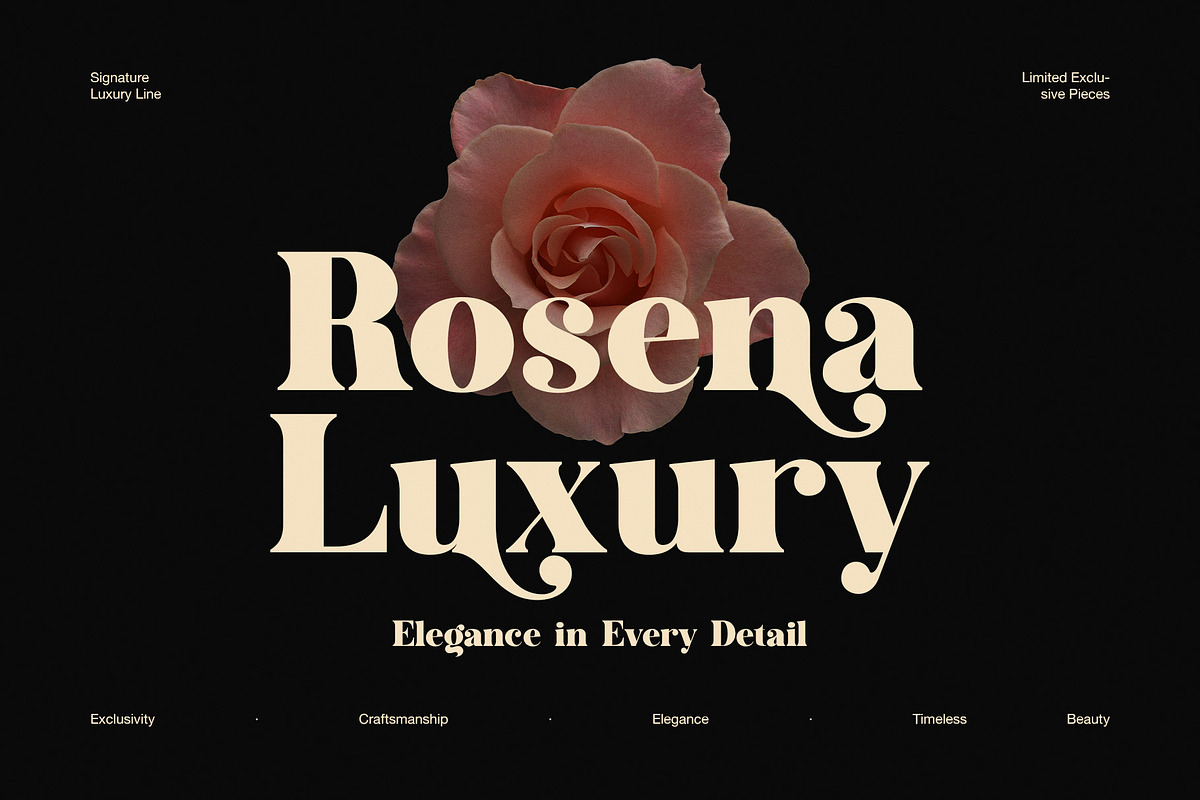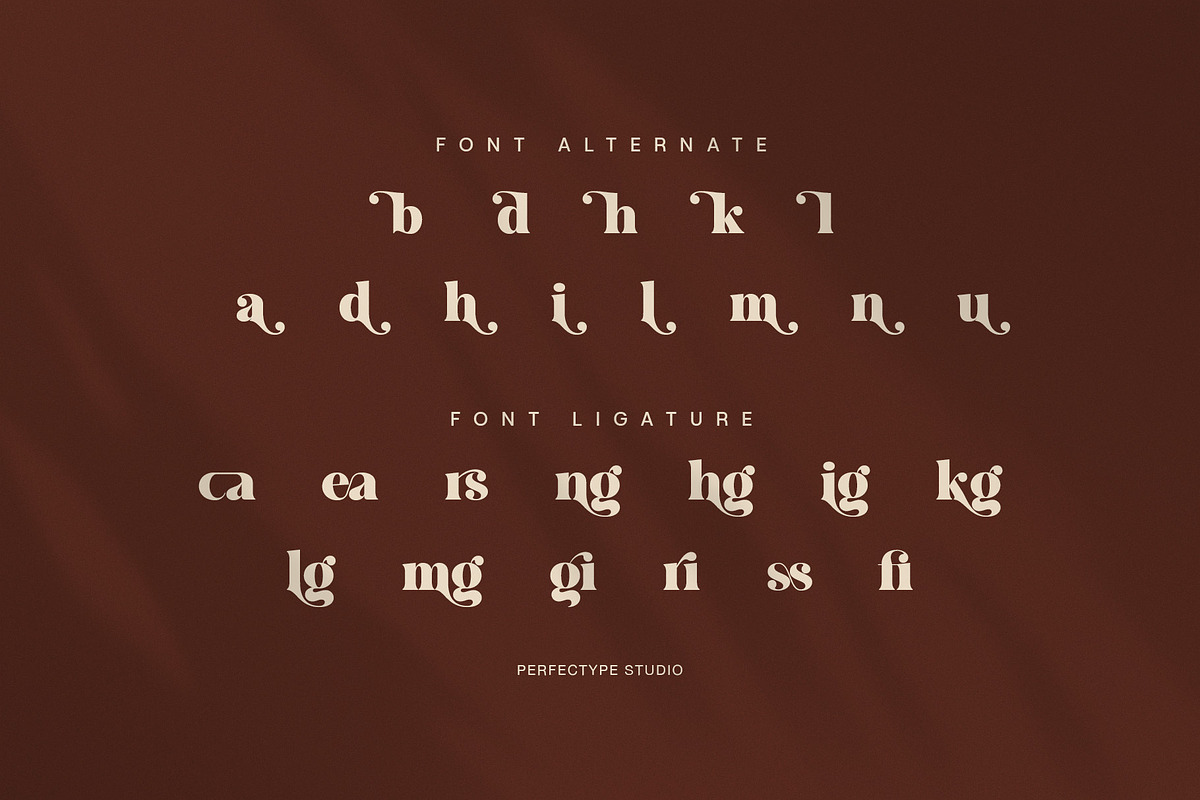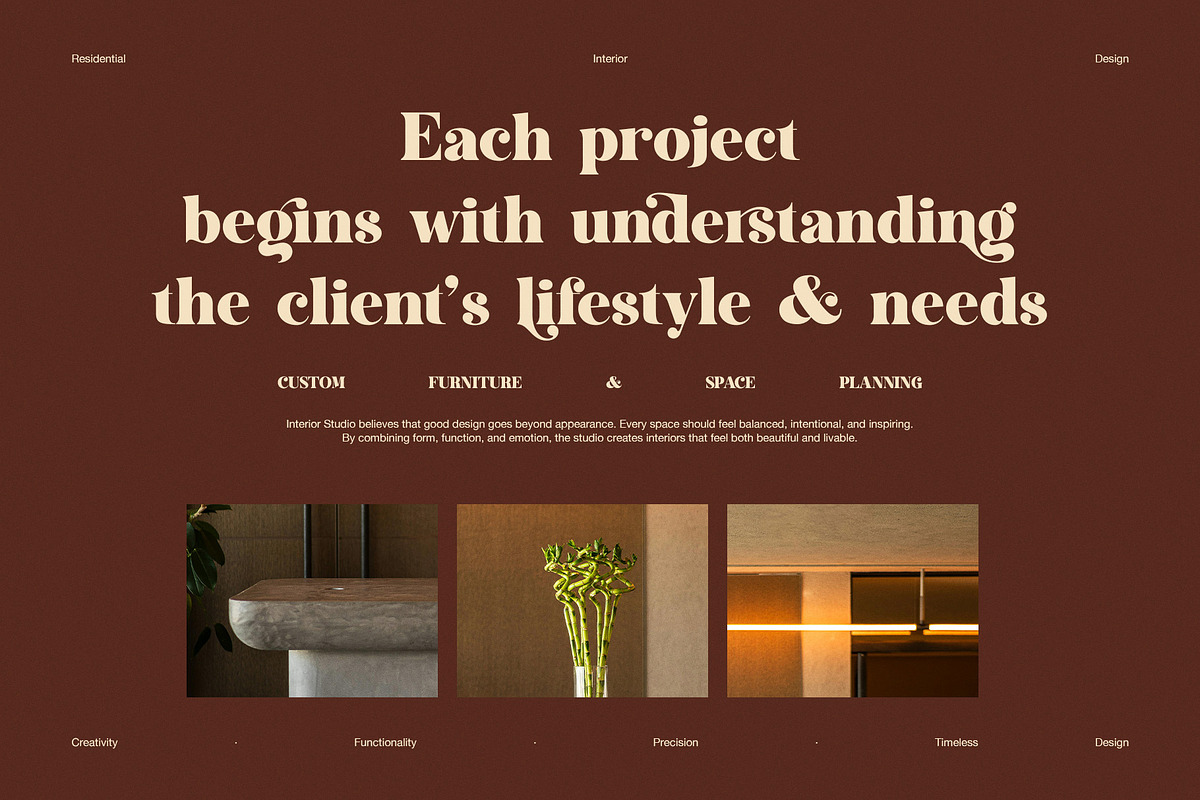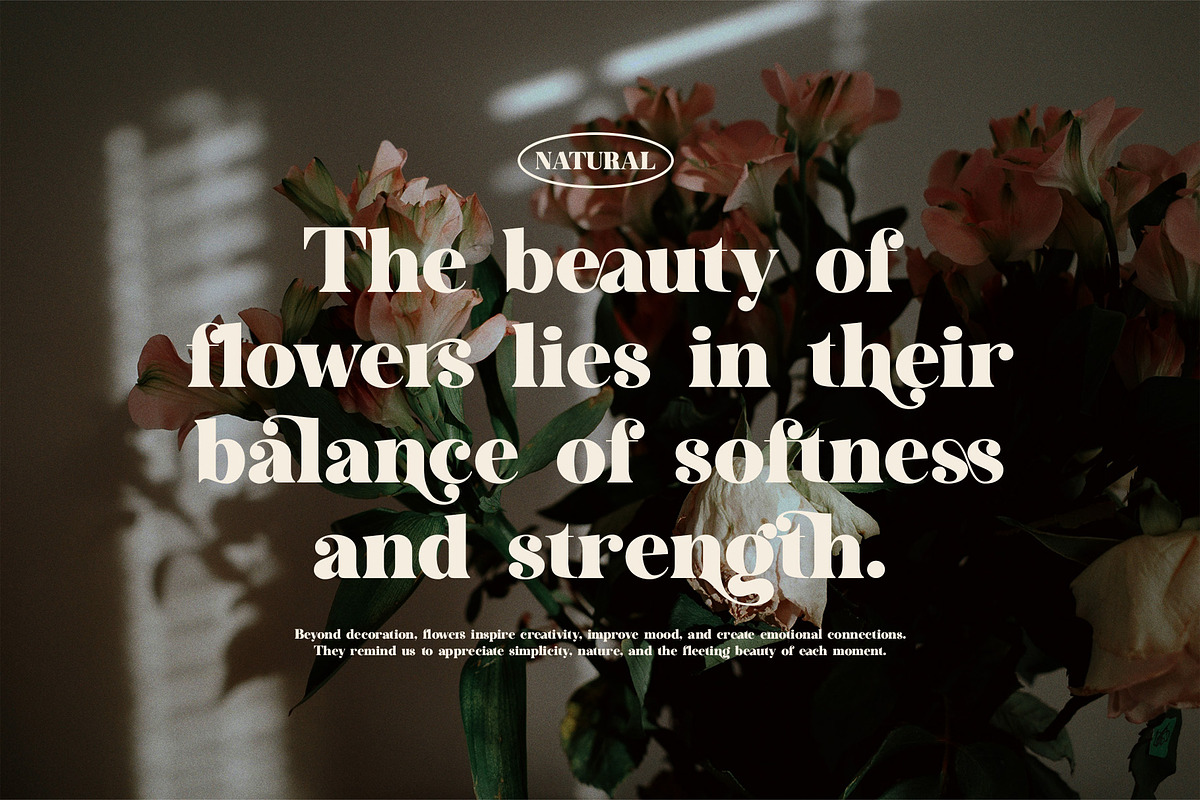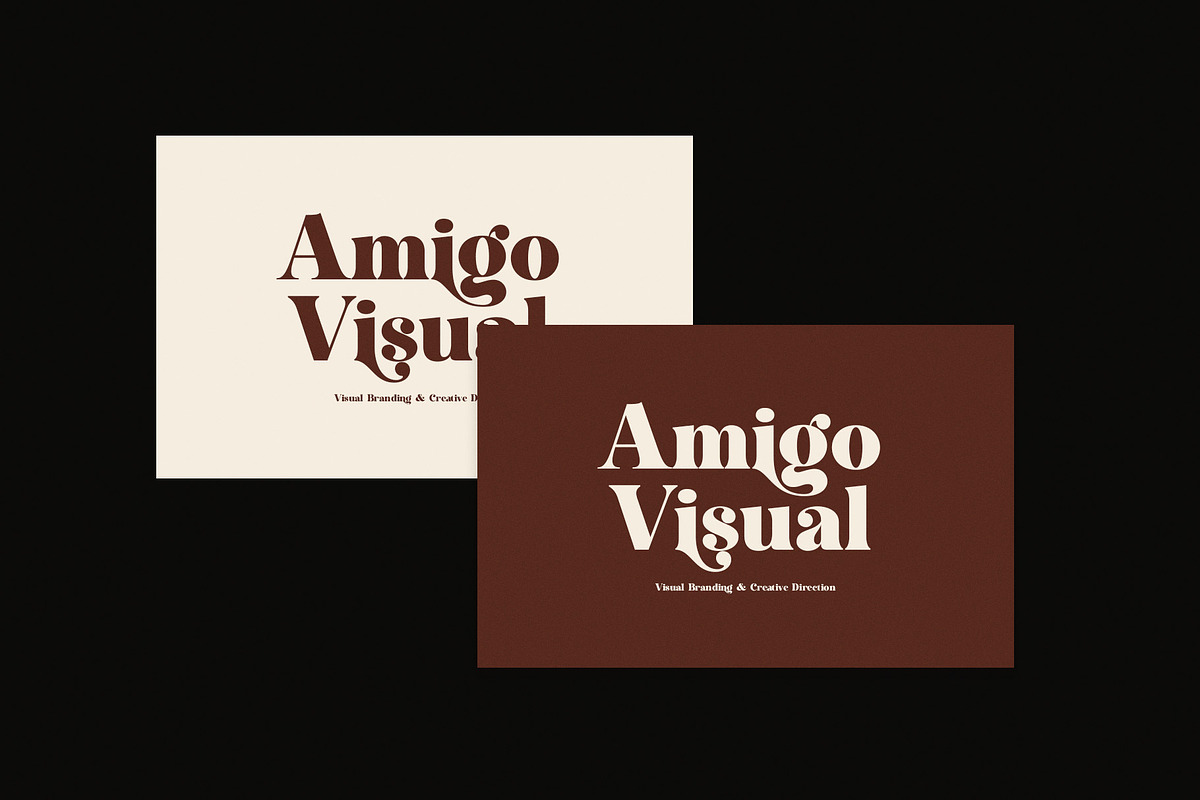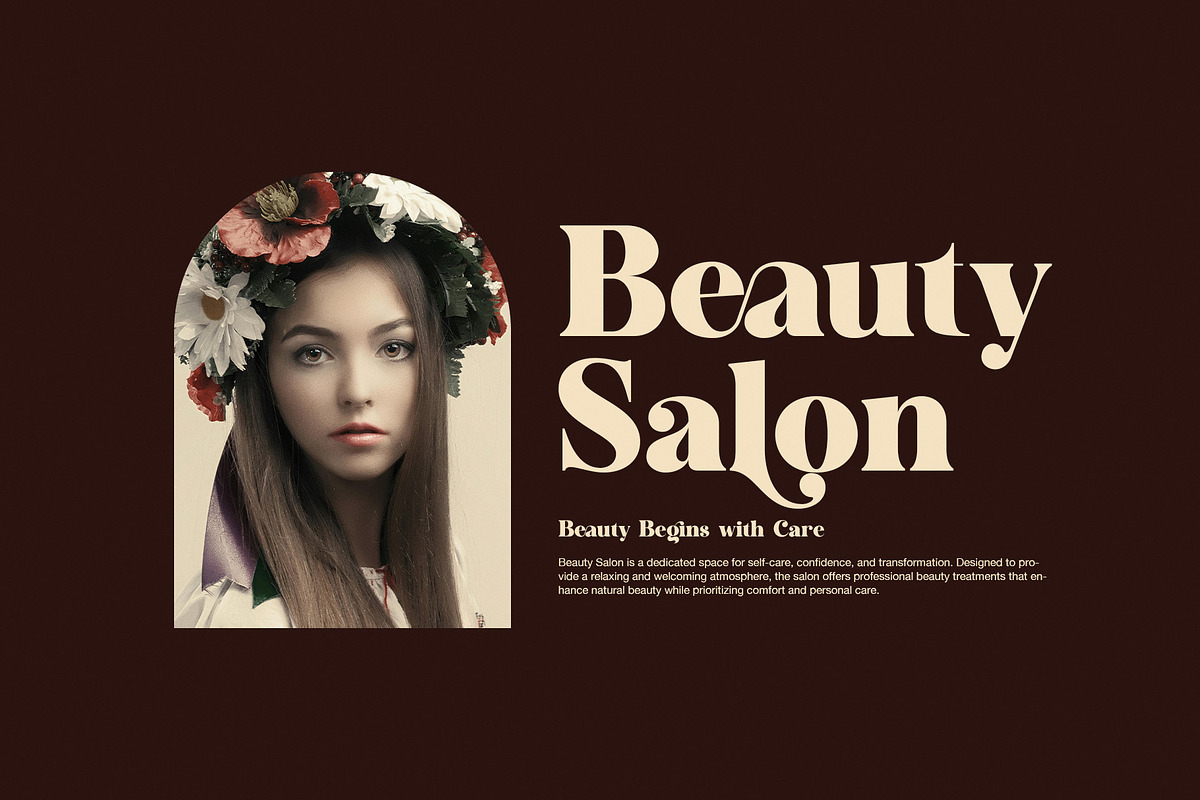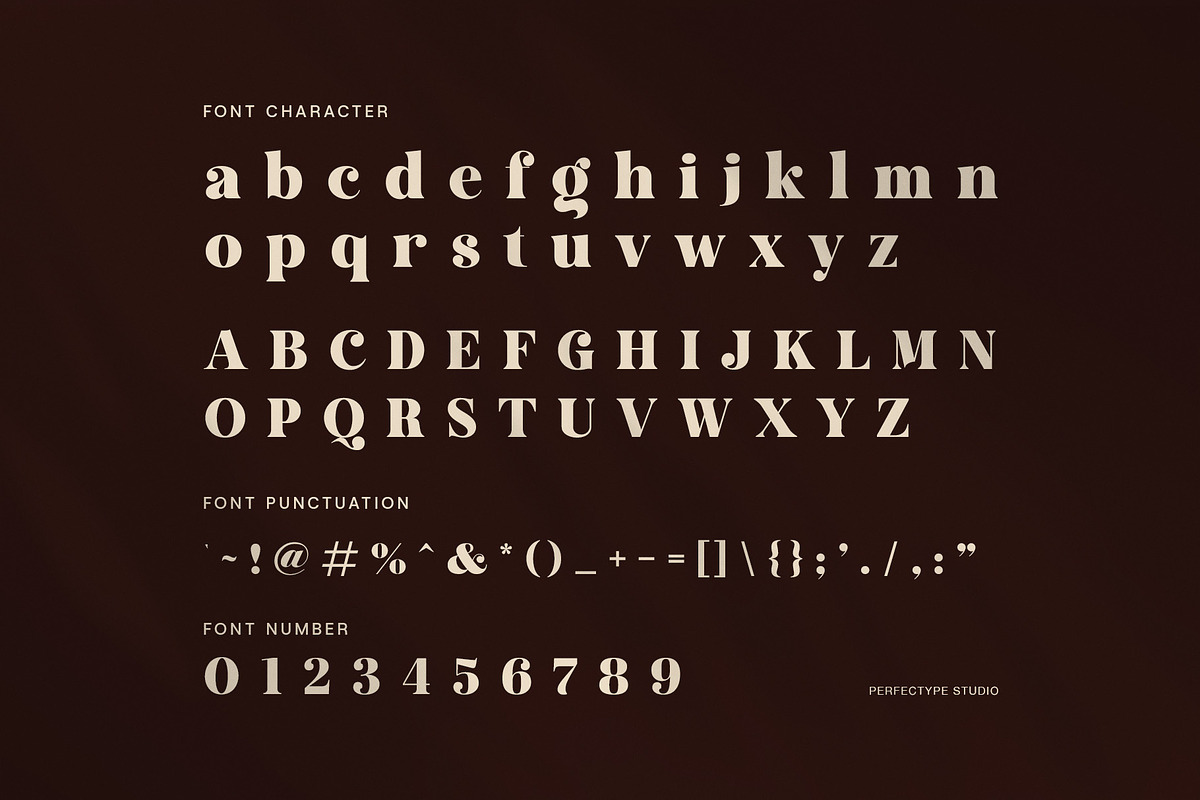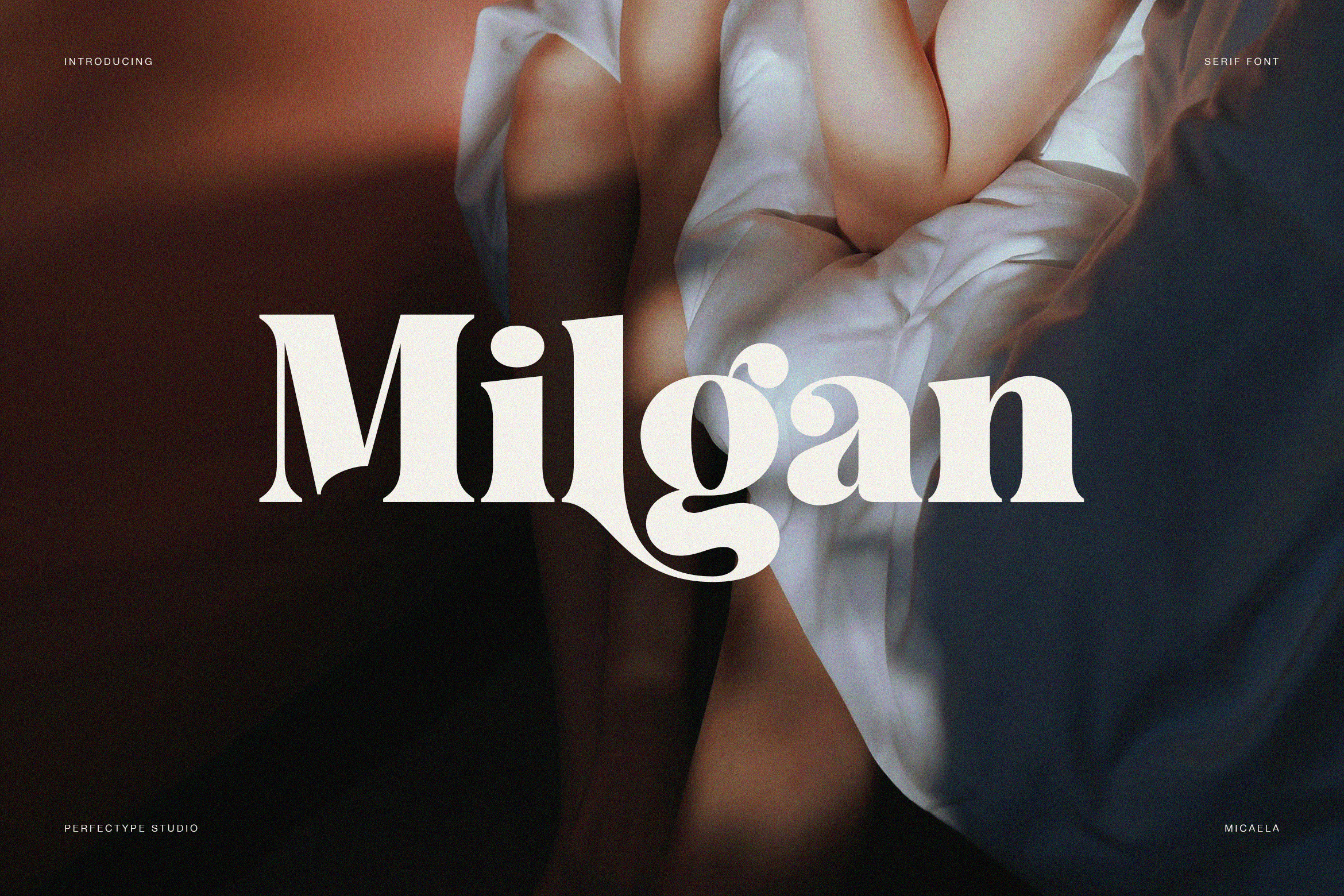
Milgan Elegant Luxury Serif Font
Milgan is an elegant luxury serif font designed to express beauty, softness, and refined confidence. From its first impression, this font feels graceful and expressive. Therefore, it is ideal for designers who want to create emotional and premium visual identities.
Milgan blends classic serif structure with gentle curves and modern proportions. As a result, each letterform feels balanced and intentional. The smooth contrast between thick and thin strokes adds elegance, while the rounded terminals bring warmth and approachability. Moreover, the subtle details give Milgan a romantic yet professional character.
Because the letterforms are clean and readable, Milgan performs beautifully in both large headlines and supporting text. In addition, the spacing is carefully refined to maintain clarity across digital and print layouts. This makes the font suitable for branding, editorial design, and high-end packaging.
Milgan includes decorative alternates and refined ligatures. These features allow designers to add personality while maintaining visual harmony. Furthermore, the alternates provide creative flexibility for logos, titles, and luxury branding projects. The ligatures help create smooth word flow, especially in beauty, fashion, and lifestyle designs.
Another strength of Milgan is its versatility. While it feels feminine and soft, it remains confident and timeless. Therefore, it works well for beauty salons, wedding designs, floral brands, interior studios, and premium product labels. At the same time, it fits magazines, lookbooks, and elegant website headers.
Milgan pairs easily with minimal sans-serif fonts. Consequently, designers can build strong hierarchy without visual clutter. In addition, the font keeps its charm even at large sizes, making it perfect for hero text and statement typography.
Elegant luxury serif design
Soft curves with high contrast strokes
Decorative alternates and smooth ligatures
Excellent readability for print and digital use
Ideal for beauty, fashion, and premium branding
Overall, Milgan is a refined serif font that delivers elegance, emotion, and timeless beauty in every design.